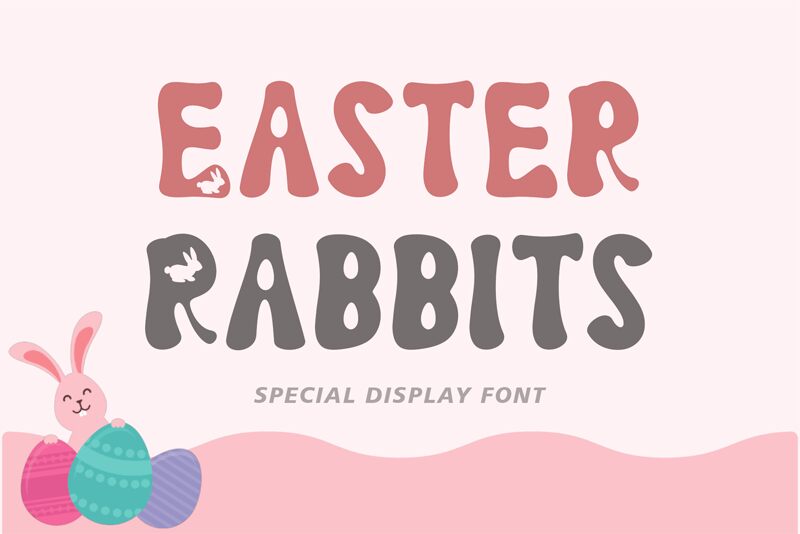
Easter Rabbits, designed by Yoga Letter, is the perfect holiday font for all your Easter projects. This bold and condensed typeface embodies the playful spirit of the season with its whimsical easter style. From greeting cards to party invitations, this font is sure to make your designs stand out. Its condensed width ensures that you can fit more text on a page without sacrificing legibility. Use Easter Rabbits for your digital designs or print projects and watch as it adds a touch of fun to your Easter creations.